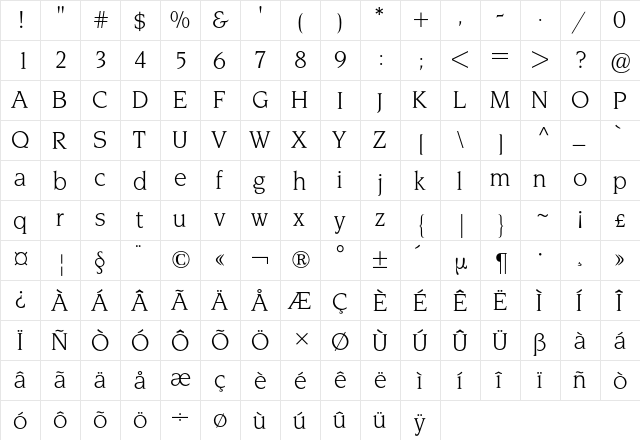
Novarese BQ Regular Font Preview
Novarese BQ Regular
Novarese BQ Regular Font Details
Design Context for Novarese BQ Typeface
Novarese BQ offers clean, dependable letterforms without strong stylistic allegiance, making it a practical choice for designers who need flexibility.